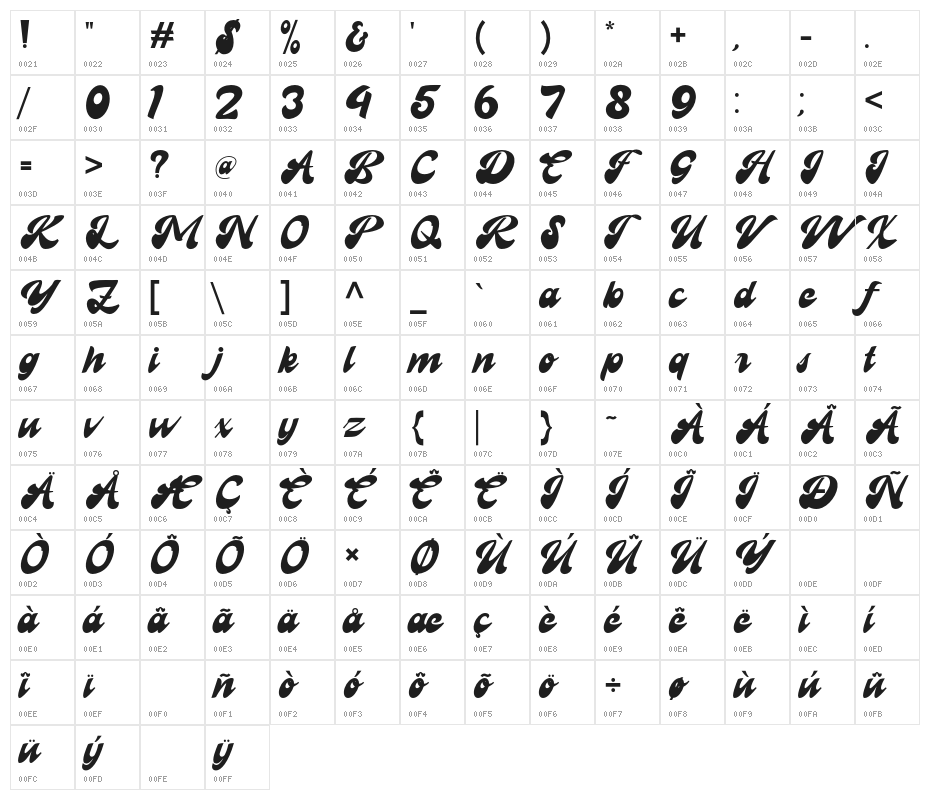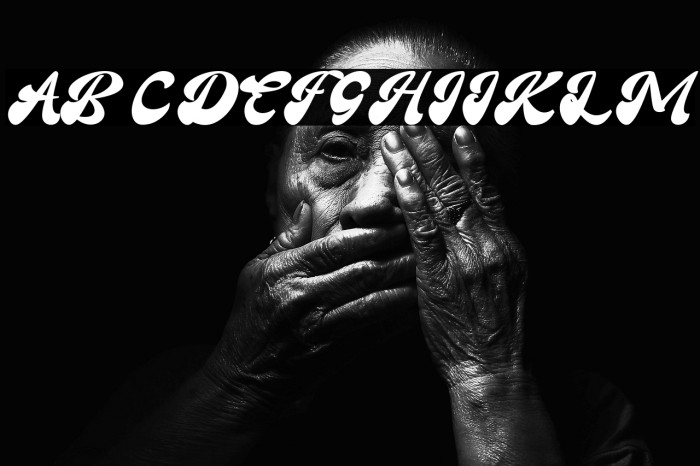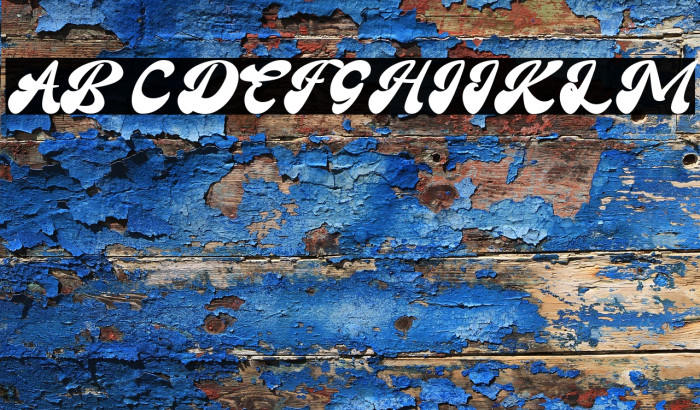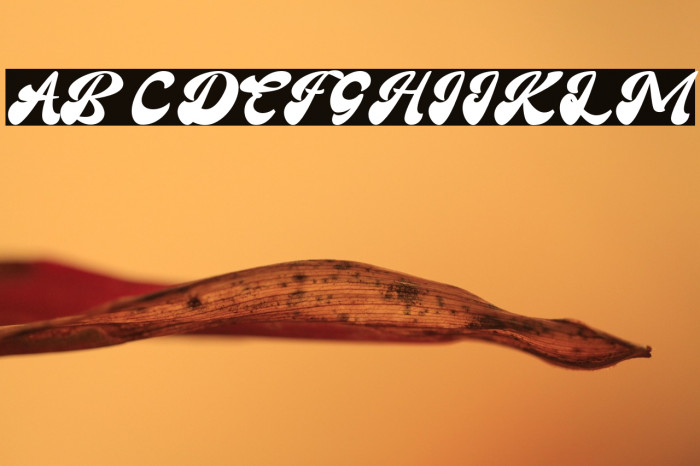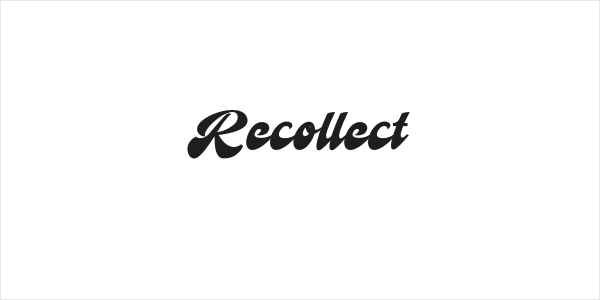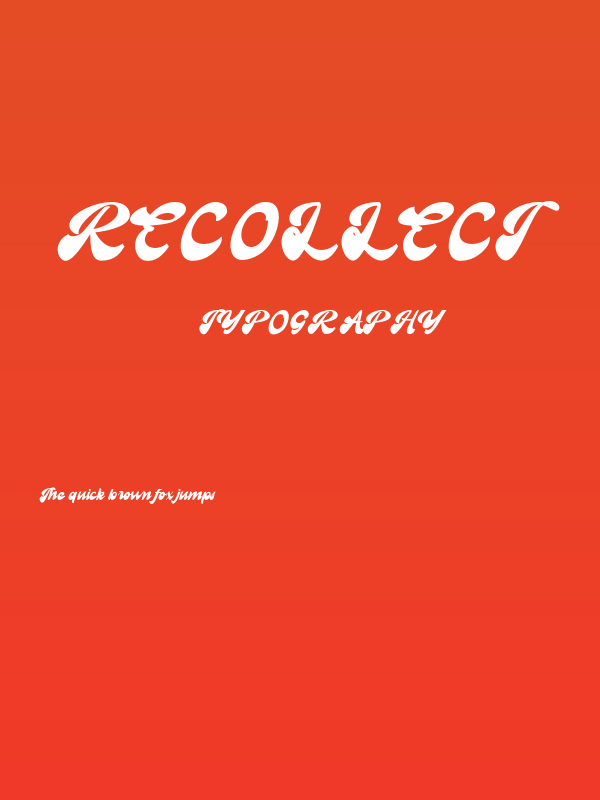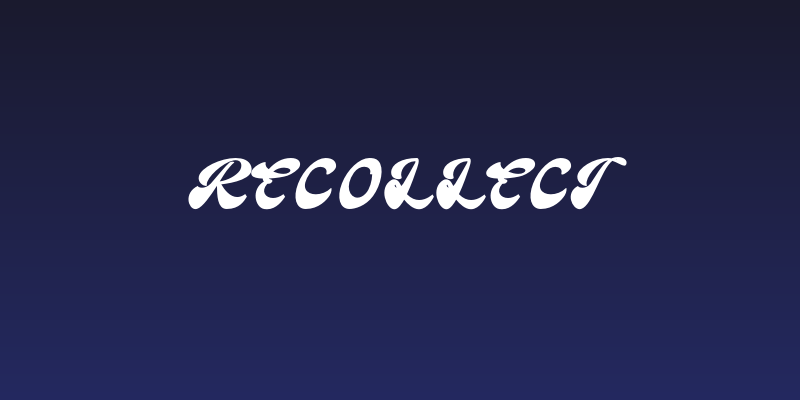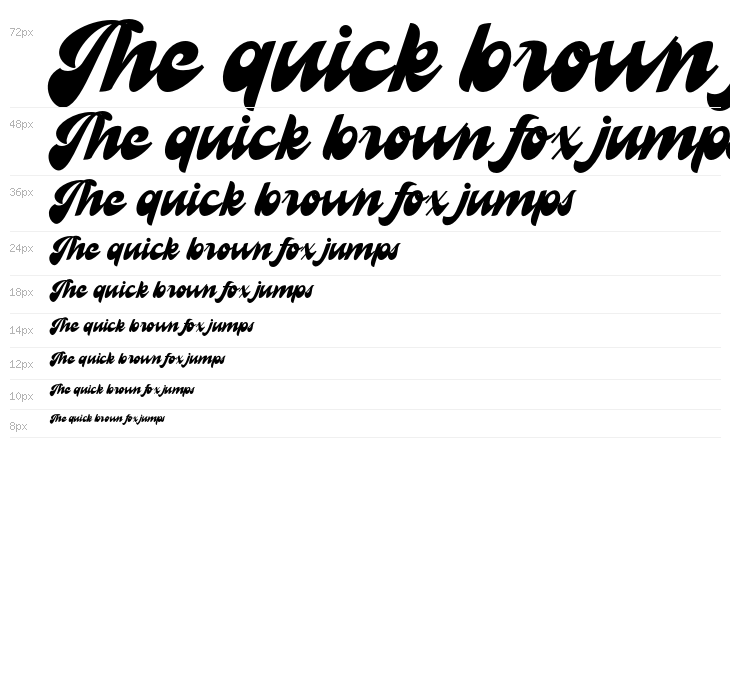
Recollect Font
Recollect Description
This font features a bold and flowing script style, characterized by its elegant and dynamic curves. The uppercase letters are particularly striking, with a sense of movement and flair that suggests a handwritten quality. The lowercase letters maintain this fluidity, creating a cohesive and harmonious appearance across the alphabet. The numerals are bold and rounded, complementing the overall style. Special characters are integrated seamlessly, maintaining the font's aesthetic. This font is ideal for projects that require a touch of sophistication and elegance, such as invitations, branding, or decorative headings.